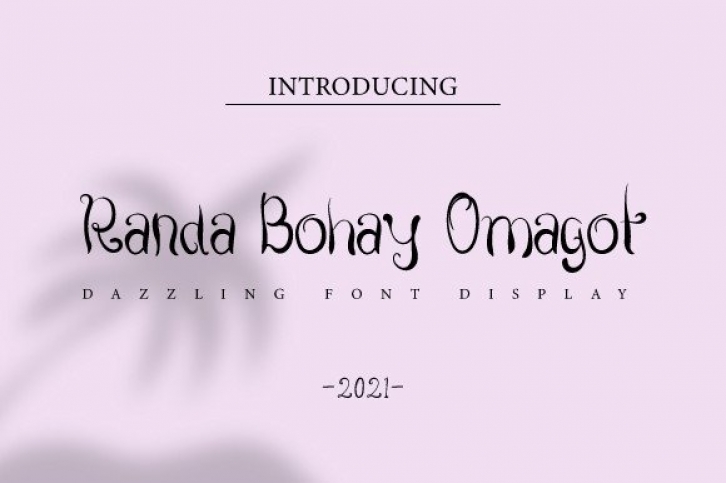
Randa Bohay Omagot is a whimsical and chic handwritten font. Featuring characters that dance along the baseline, this font will add a luxury spark to any design project that you wish to create!